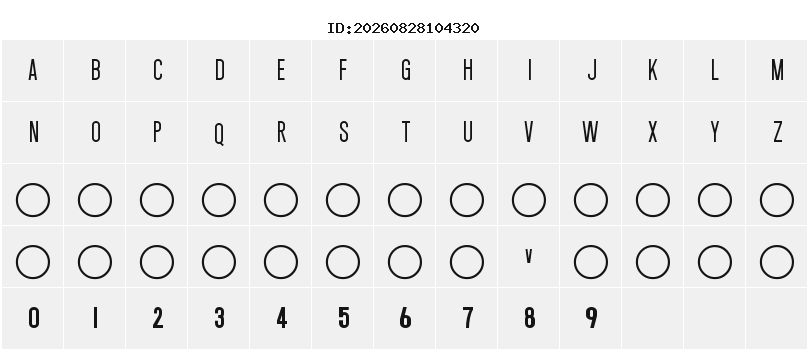
About Total 90.ttf
Total 90.ttf is a modern, elegant sans-serif font designed for ultimate readability and visual harmony. Perfect for branding, headlines, web design, and print materials.